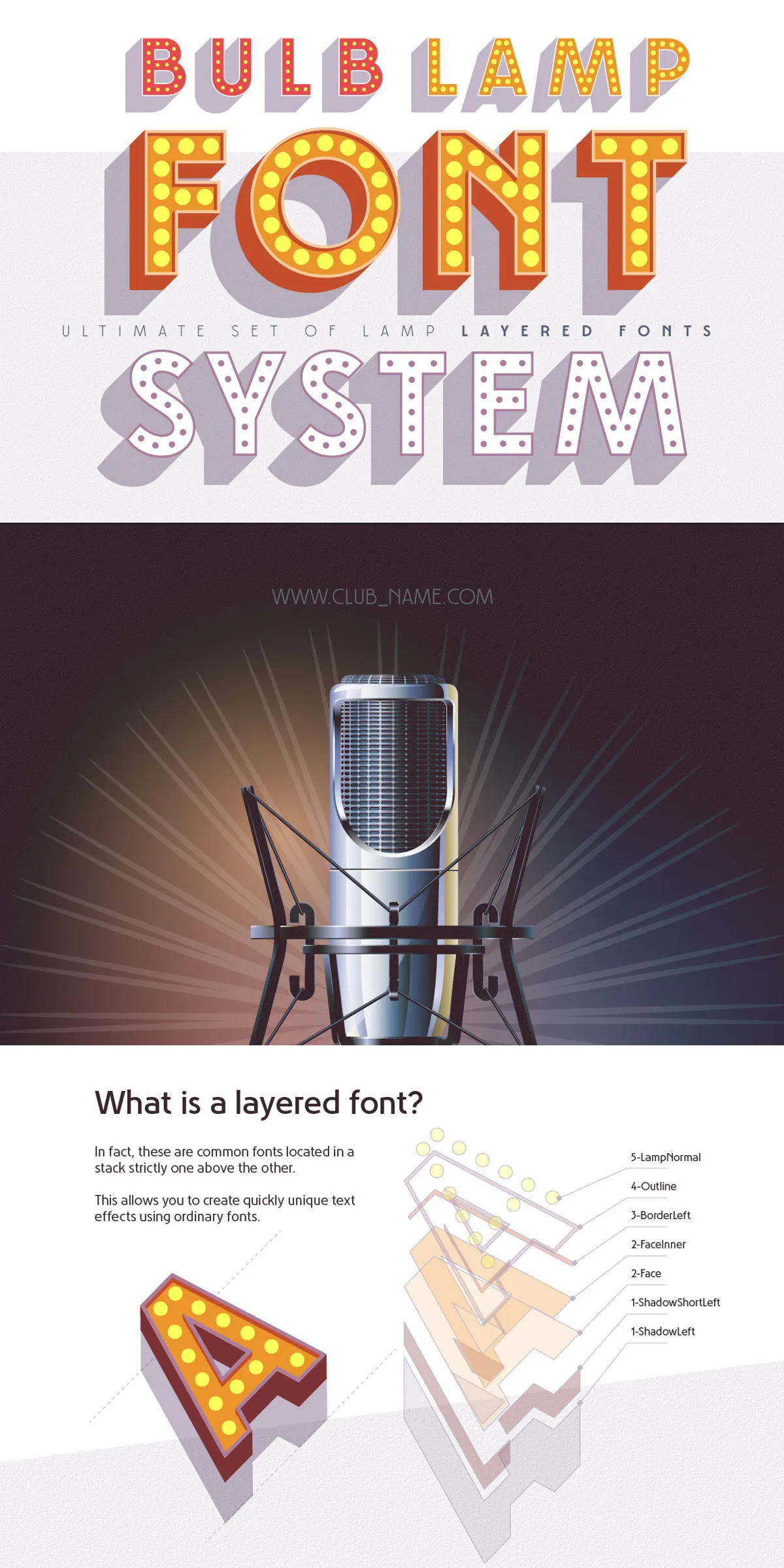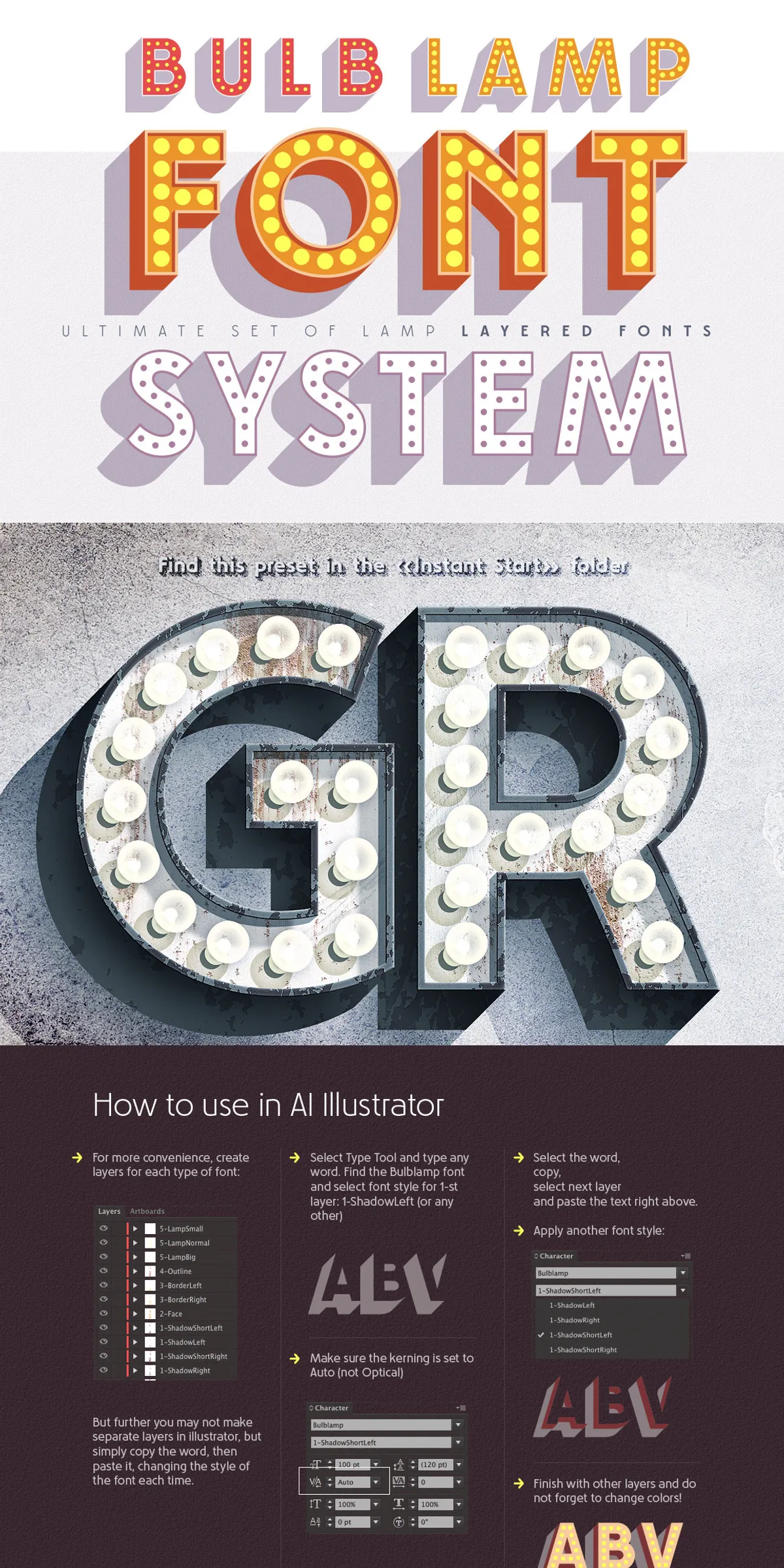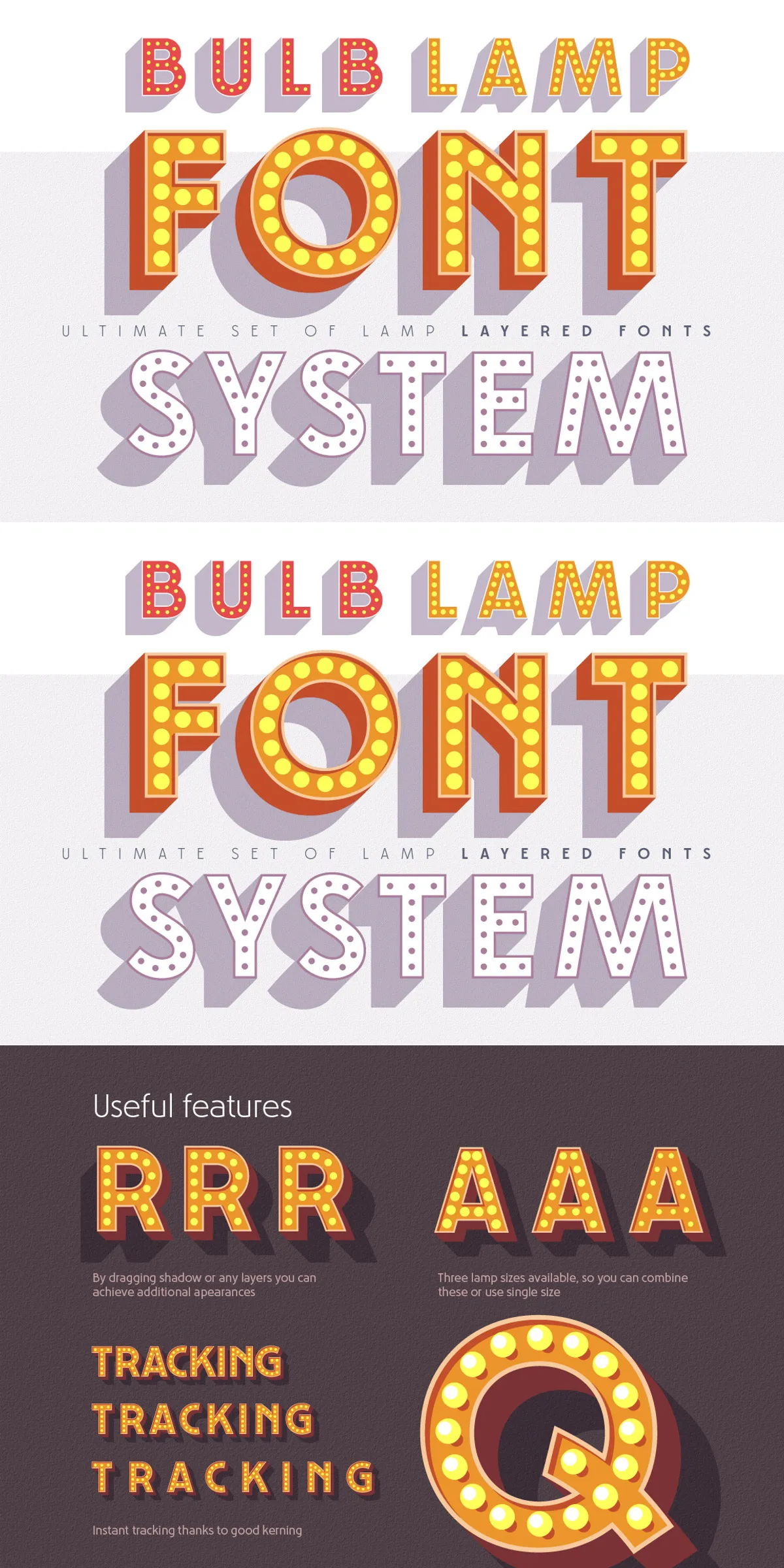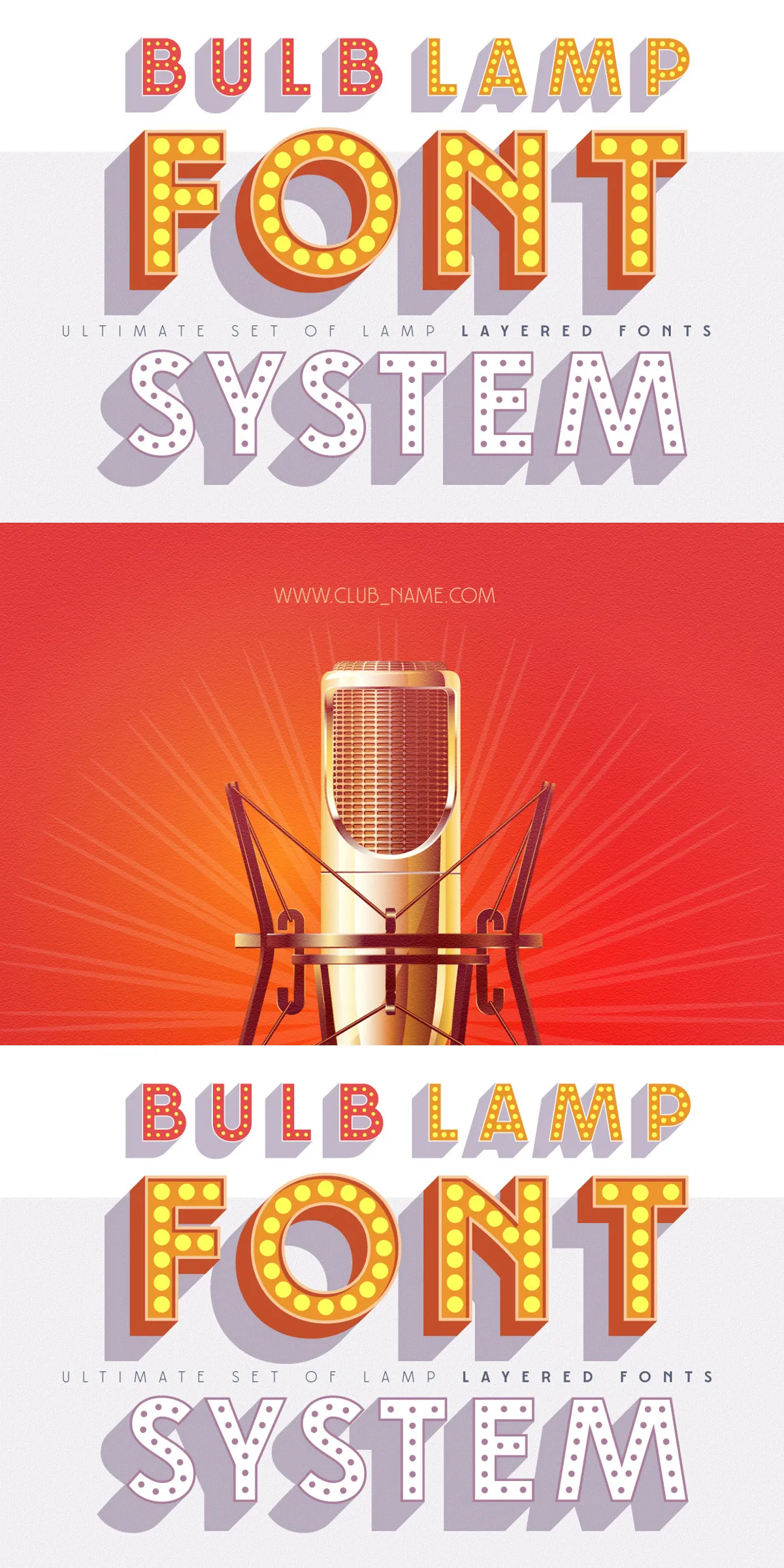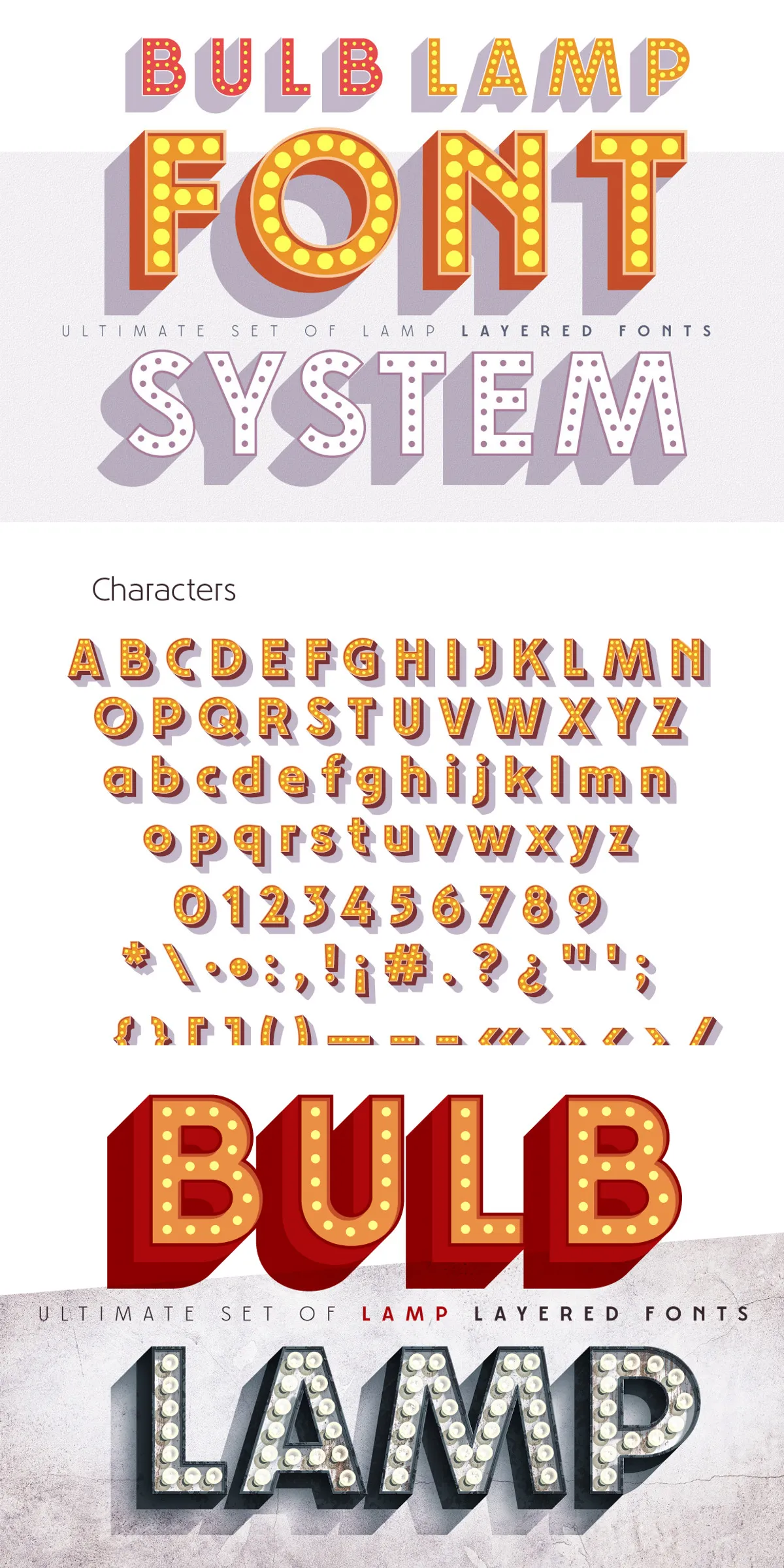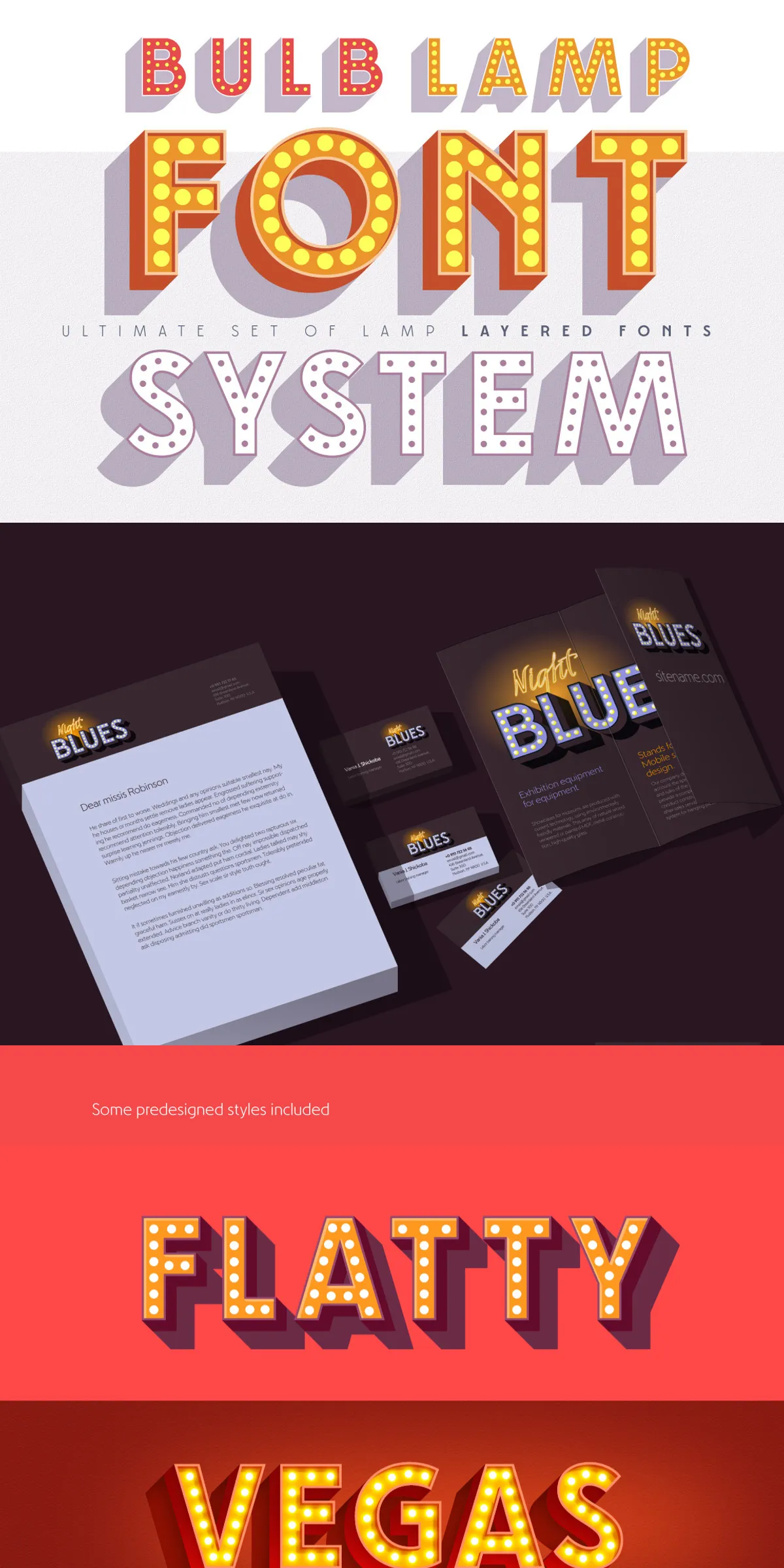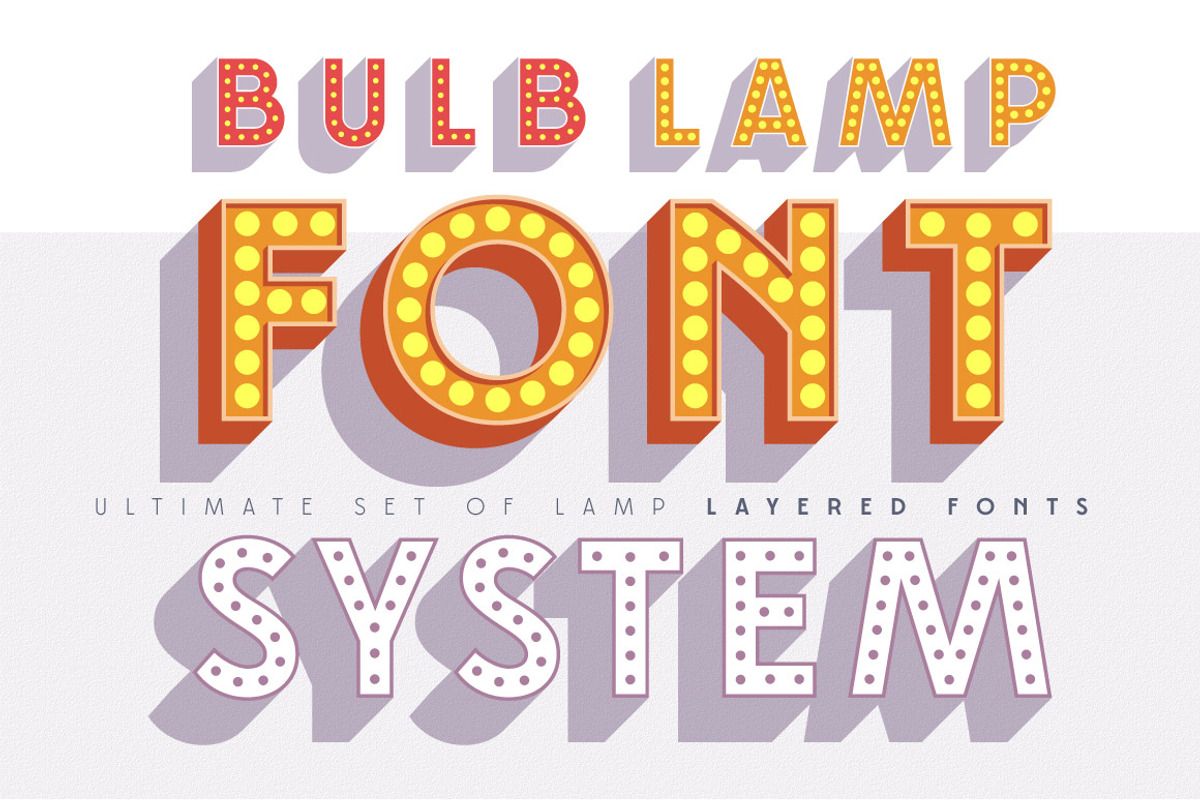
Bulblamp delivers a flexible, professional layered font toolkit that lets designers build authentic 3D bulb and lamp-style titling with speed and precision. This 12-component font system emulates the layered construction used by skilled sign painters and sign makers, providing a simple yet powerful approach to create classic signage effects across print and digital projects.
Bulblamp ships as a carefully organized set of 12 OpenType fonts designed to layer in sequence to achieve a variety of three-dimensional and illuminated looks. Each component focuses on a specific visual role—shadow, face, border, outline, or lamp highlight—so you can combine elements to produce bold retro titles, realistic marquee text, or playful display typography. The package also contains Photoshop styles and Illustrator templates, enabling immediate, high-quality results without building effects from scratch.
Number 1 indicates the base shadow layer (place first), while number 5 represents decorative lamp highlight layers (place on top). You do not have to use every component—mix and repeat styles to explore variations.
Using templates cuts setup time dramatically. The preconfigured files include layer order, blending styles, and color recommendations to help you achieve the intended visual effect immediately.
Work actively with tracking and kerning when stacking layers—tight tracking with heavier face layers creates compact marquee effects, while increased letter spacing improves legibility on very large signage. Swap left and right border variants to alter perceived light direction. Reuse the same font component with different colors and opacities to generate depth without adding new files.